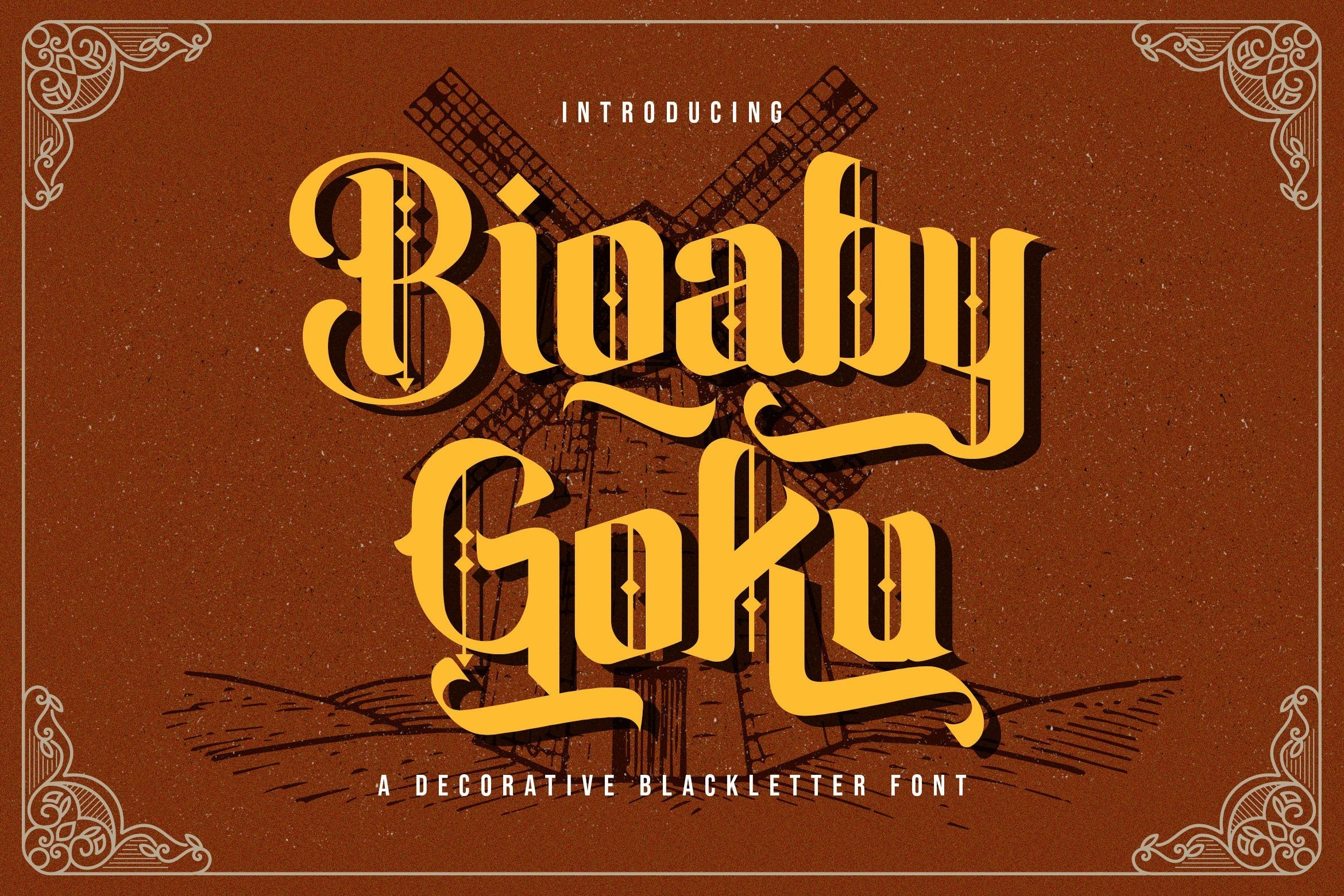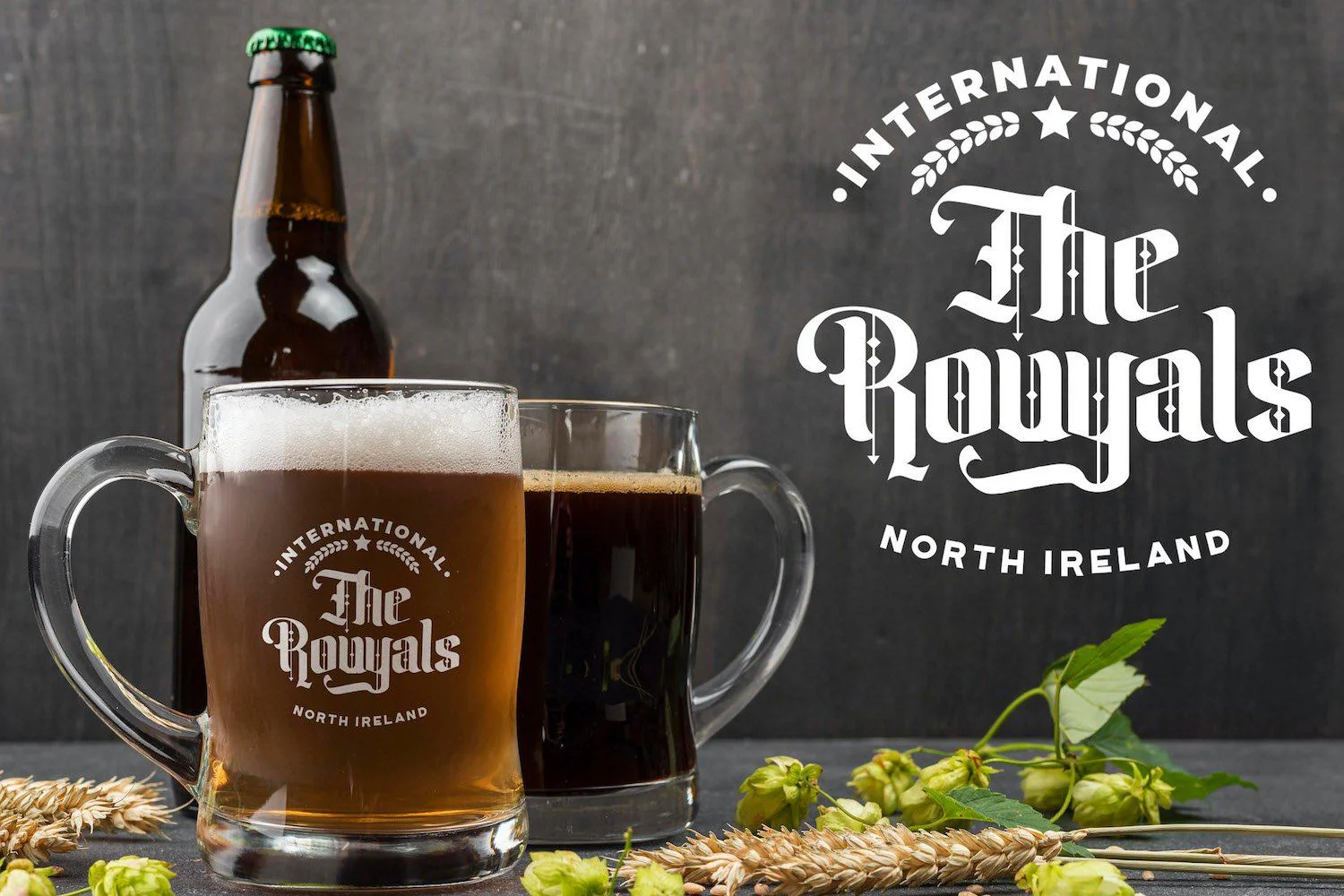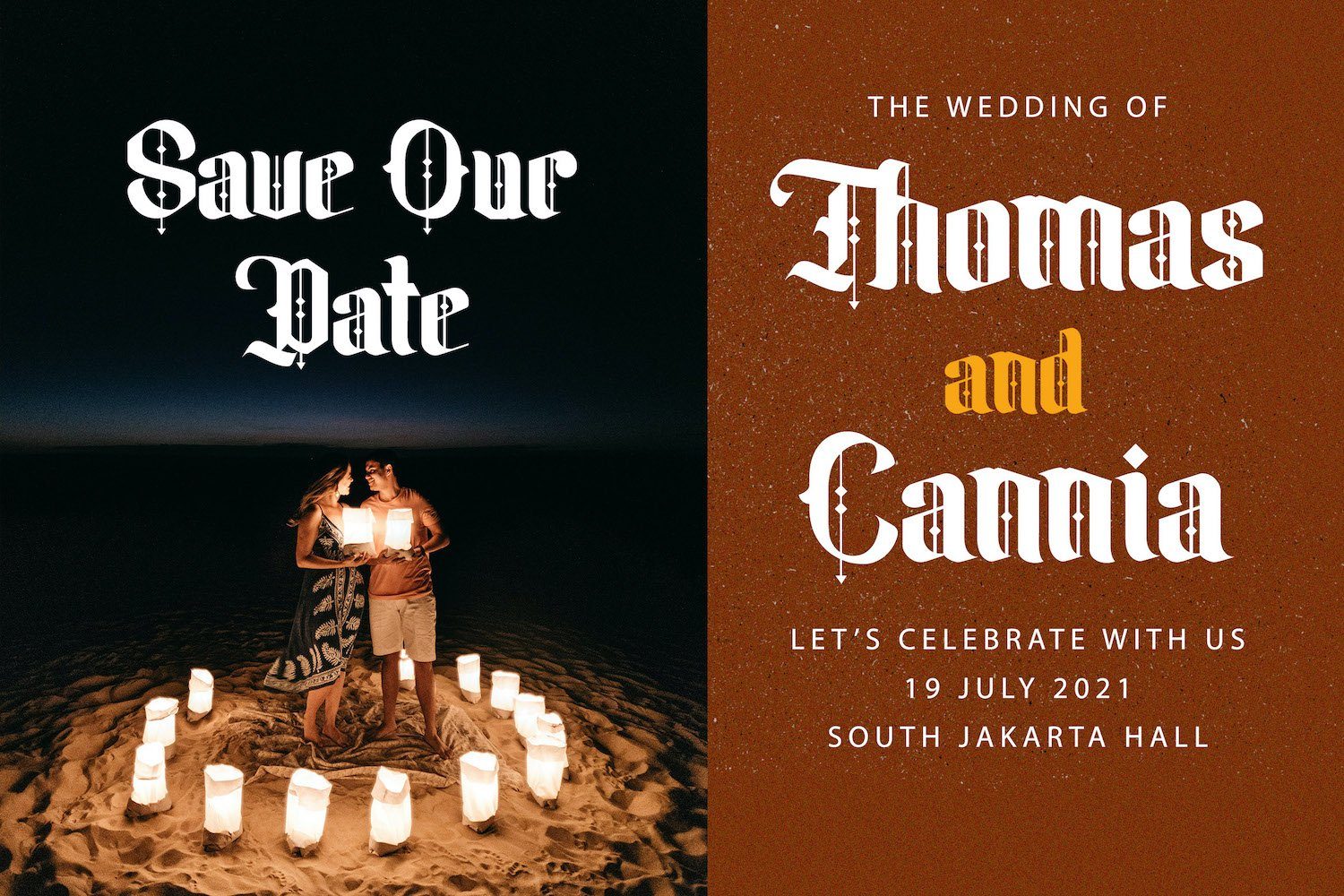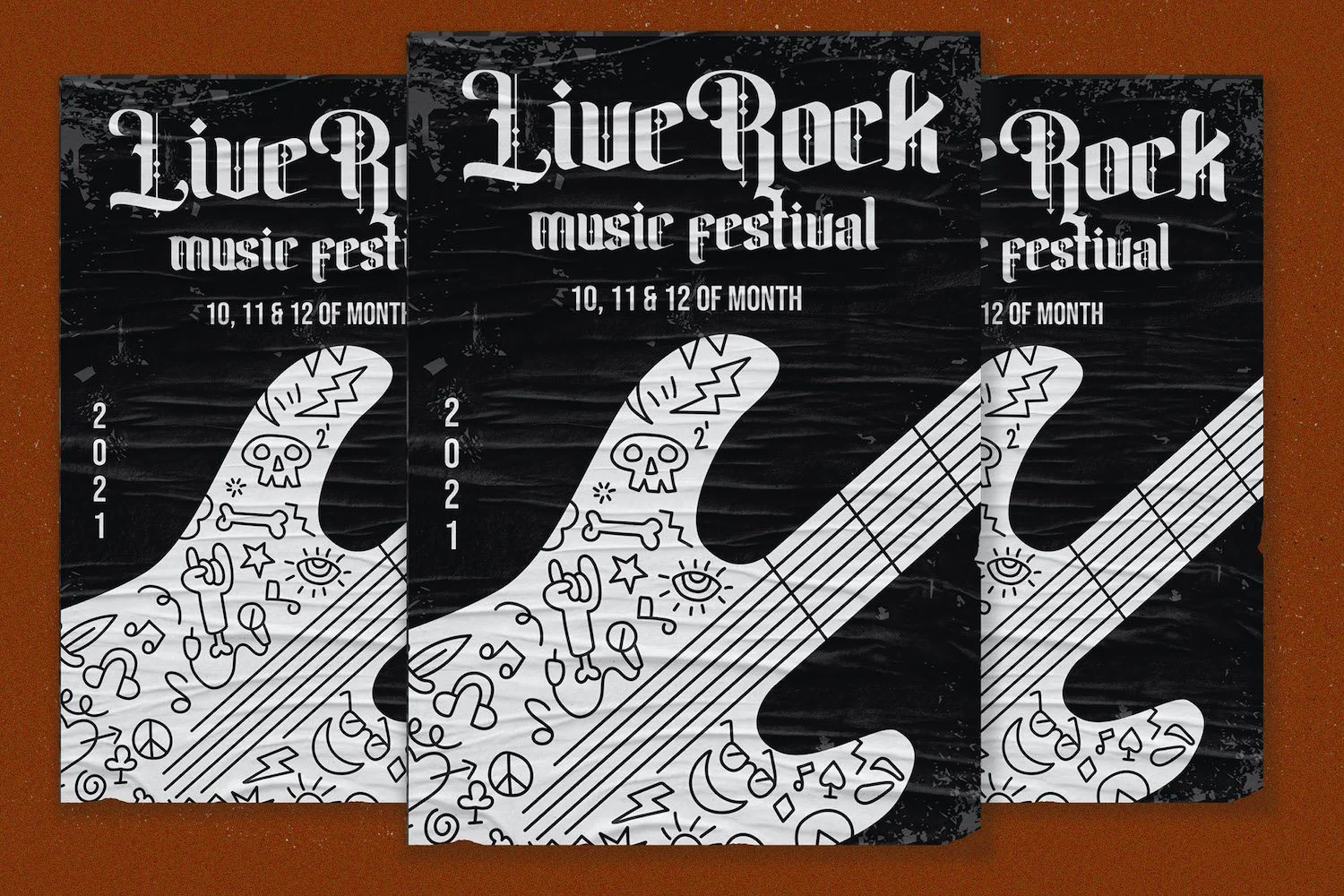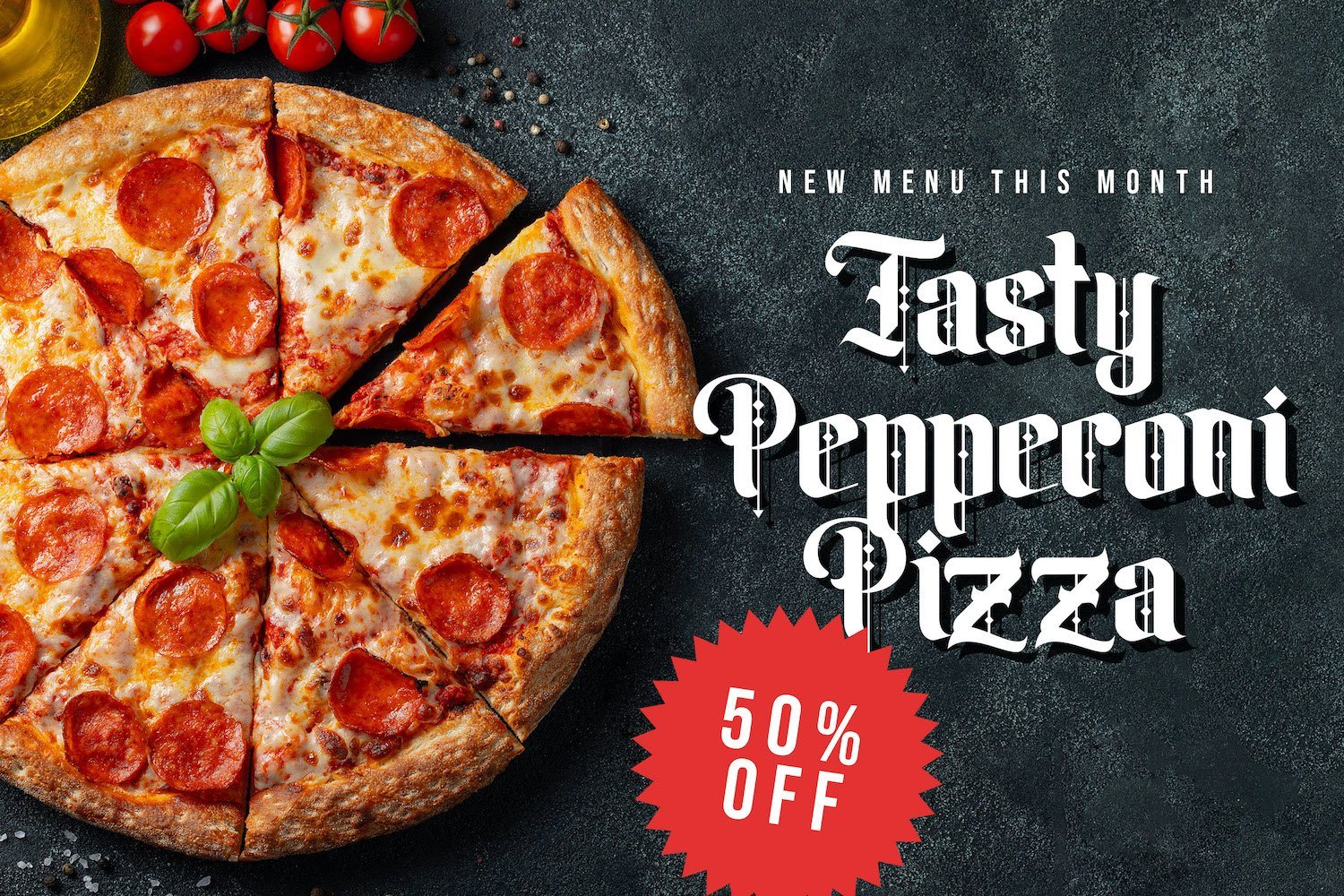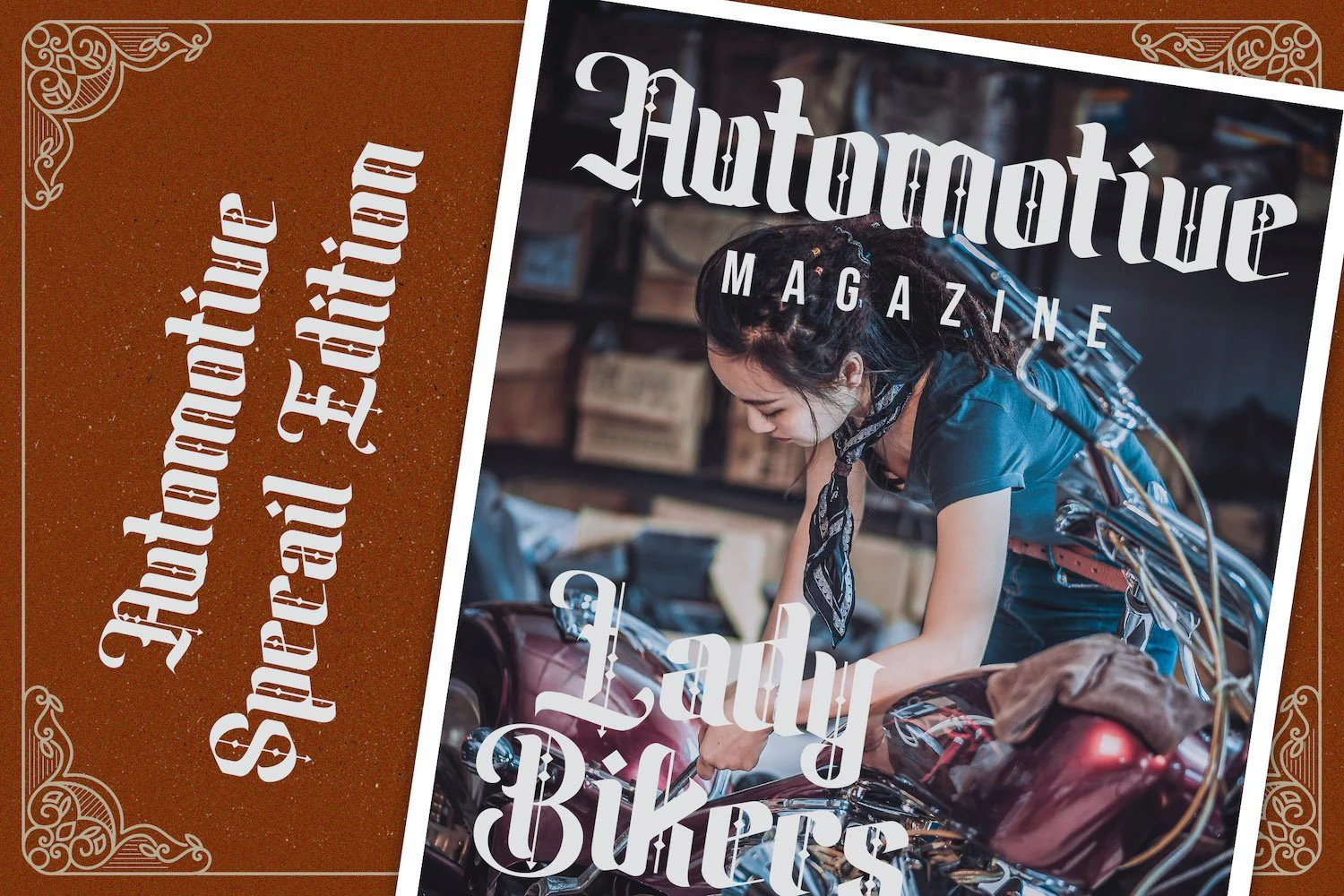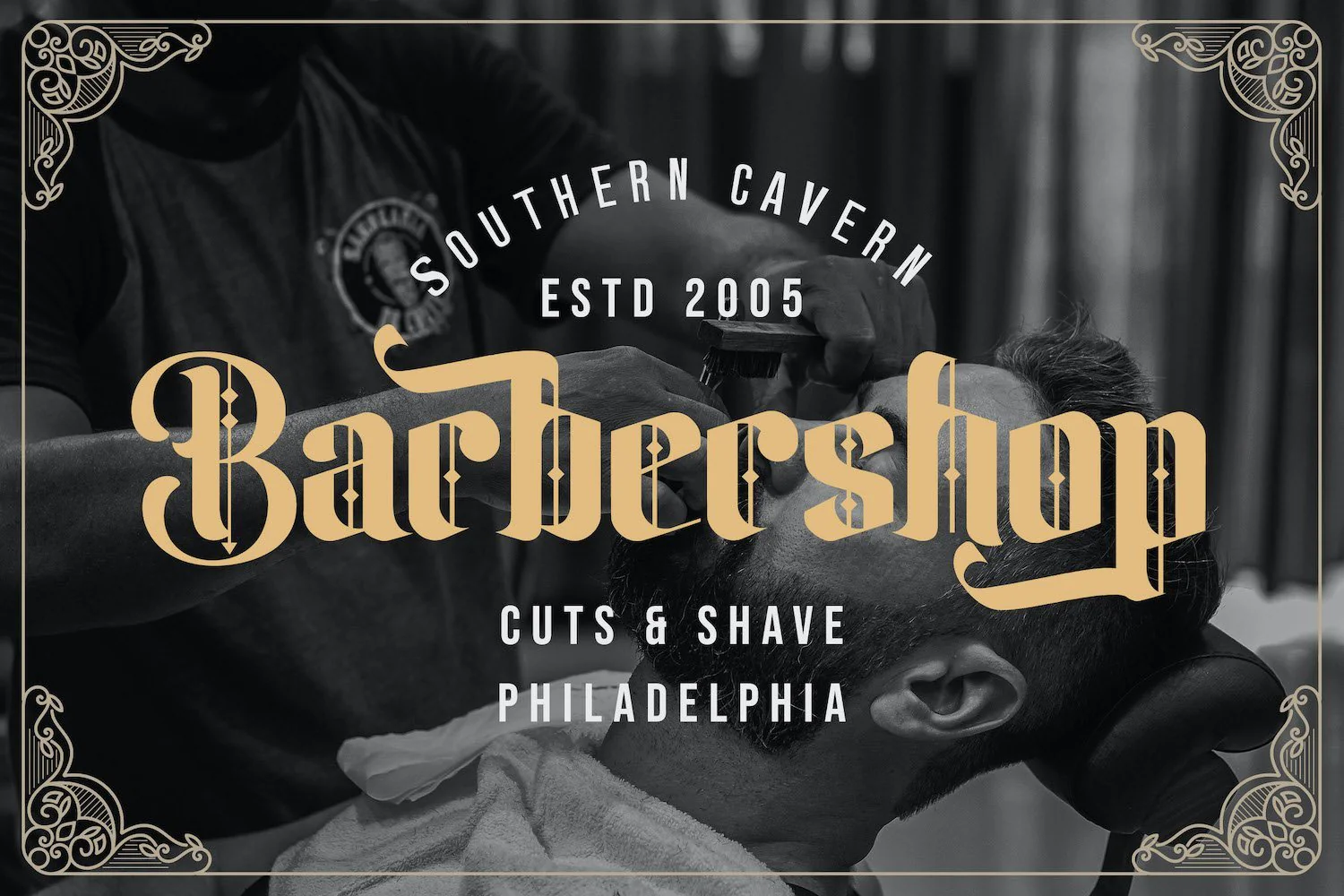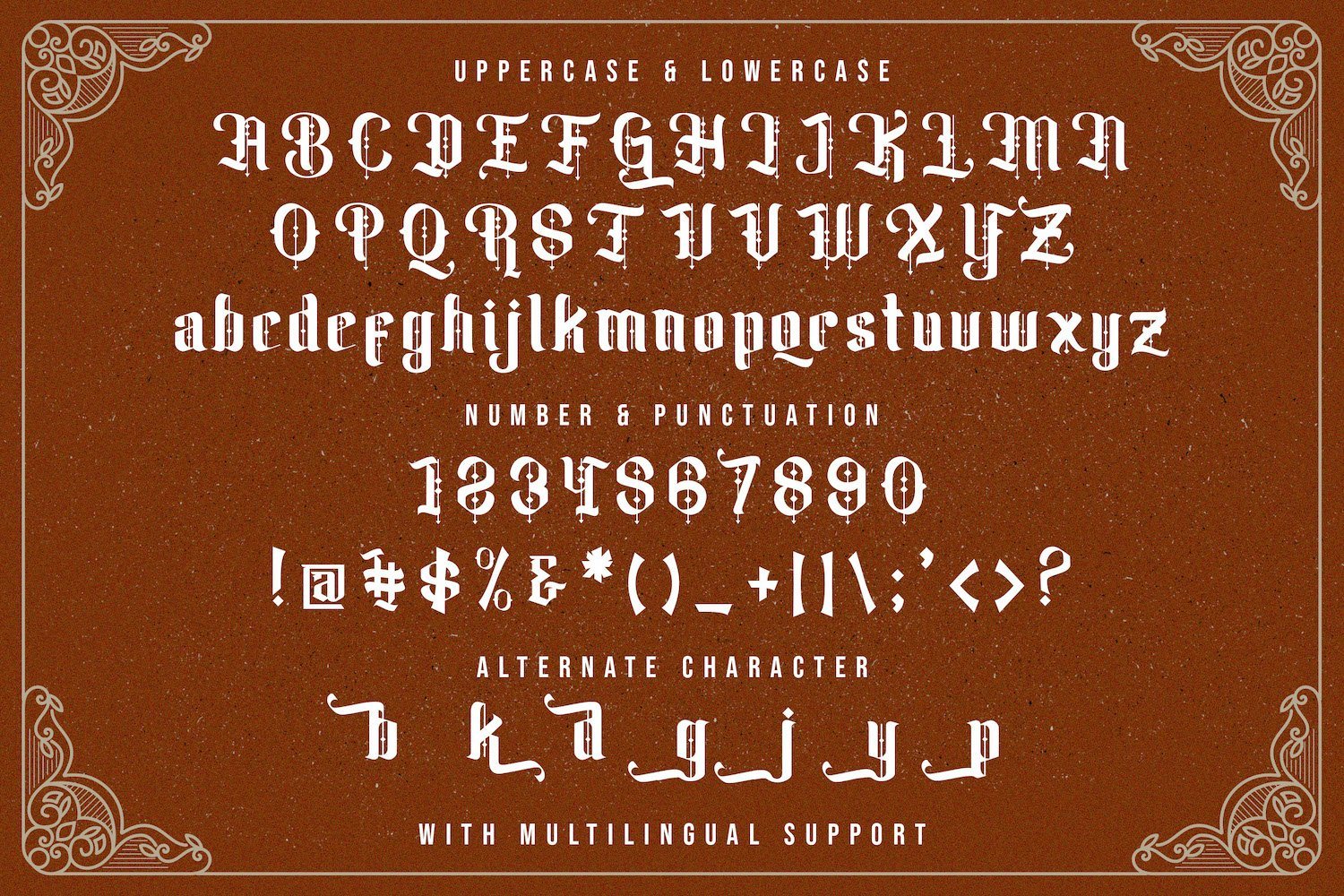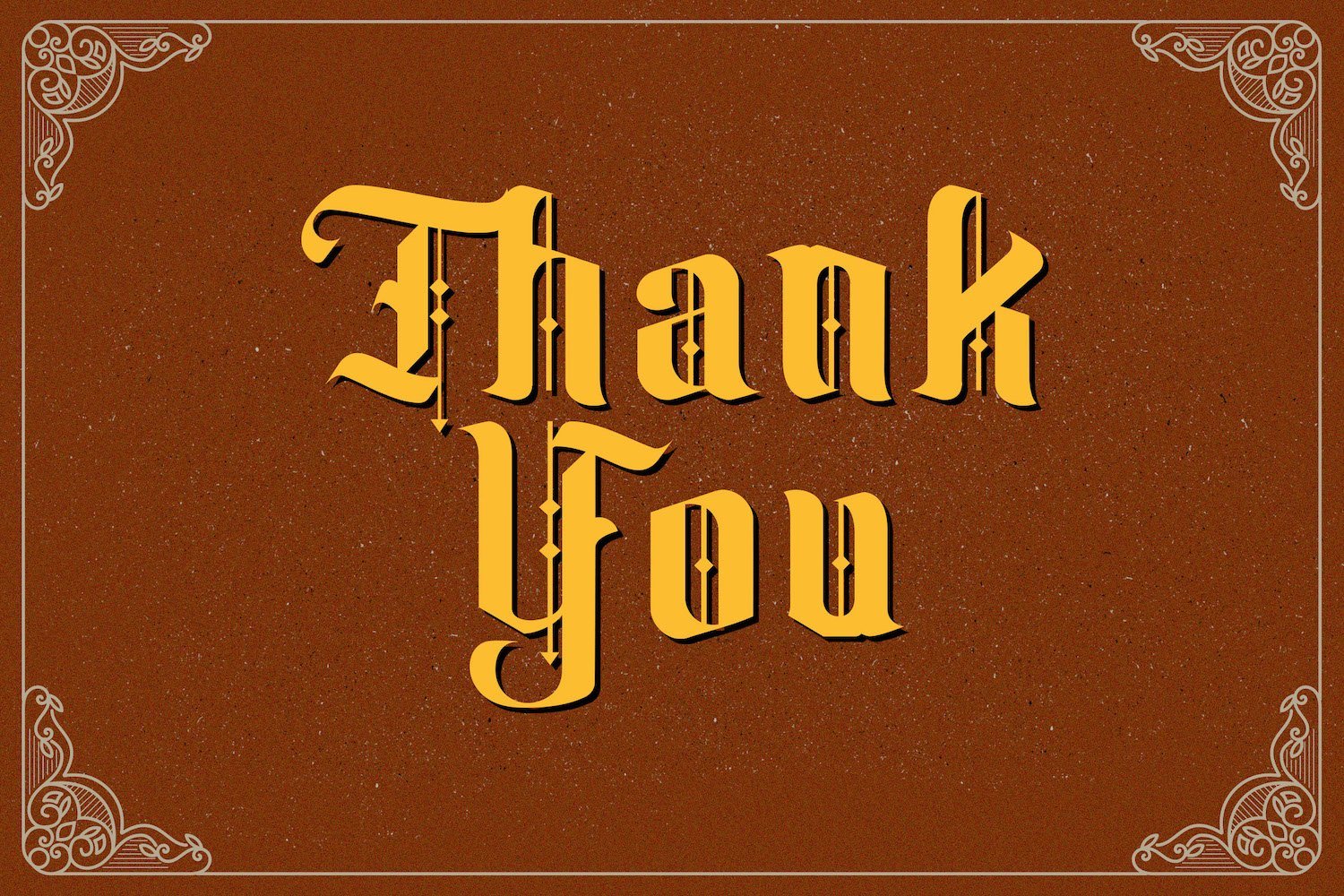
Biqaby Goku - Blackletter Font
Introducing Biqaby Goku - Blackletter Font
Biqaby Goku is an incredibly authentic and daring blackletter font. Add this font to your favorite creative ideas and notice how it makes them stand out!
Introducing Biqaby Goku - Blackletter Font
Biqaby Goku is an incredibly authentic and daring blackletter font. Add this font to your favorite creative ideas and notice how it makes them stand out!